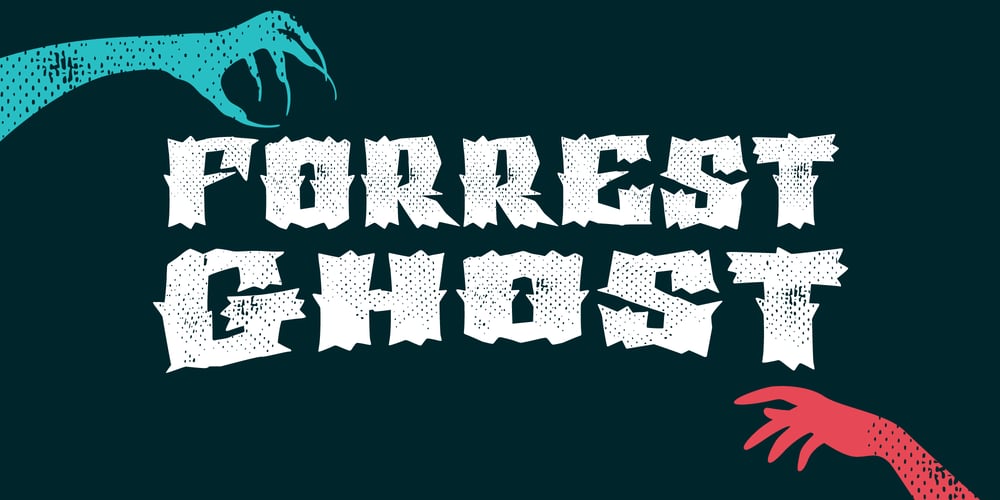
Forest Ghost Font Family was designed by Roman Korolev and published by Kaer. Forest Ghost contains 2 styles and family package options. Forest Ghost is a font family with Regular and Textured styles.You’ll get a playful font for your Scary corporate identity, Circus emblem, Halloween posters, Rock’n’roll flyer, Tattoo studio, Western-style design, and etc. Font features: All-caps, numbers, punctuation, and multilanguage support.Please feel free to request to add characters you need: kaer.pro@gmail.com